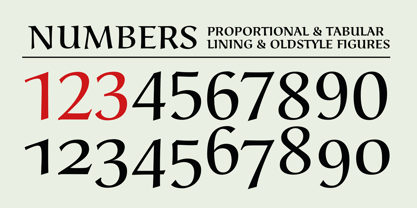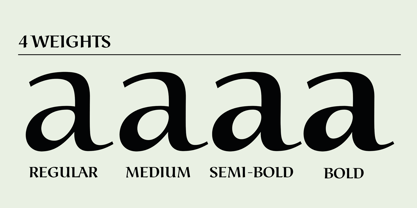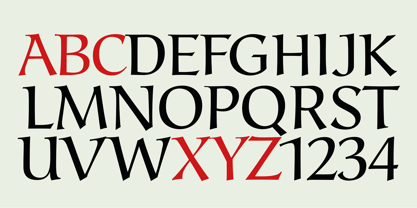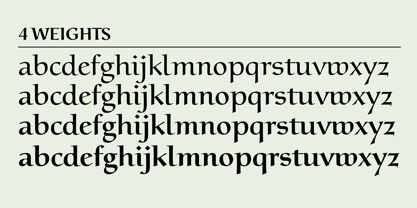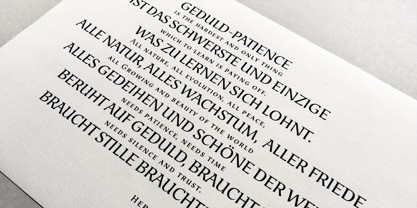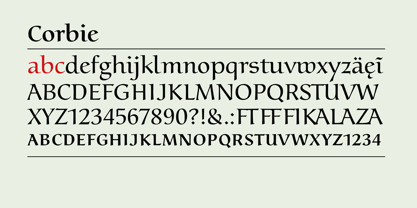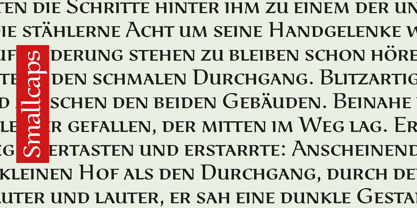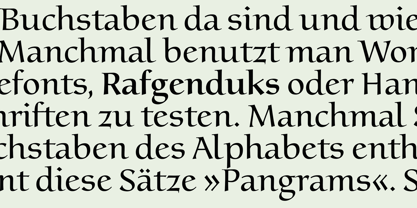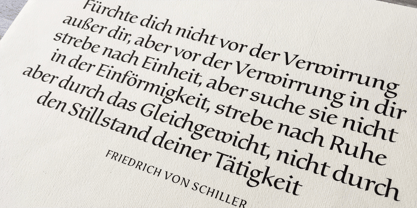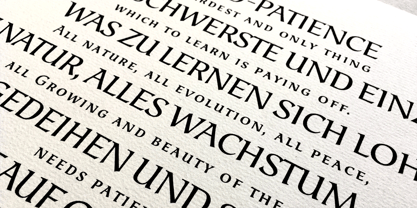
Corbie
The Corbie Font Family was designed by Bertram Kaiser and published by KaiserType. Corbie contains 4 styles and family package options. More about this family
"Corbie" is a beautifully crafted calligraphic antiqua font designed by Bertram Kaiser. This font draws inspiration from the elegant forms of the Carolingian minuscule script, which is rooted in 8th-century manuscripts. Each letter was originally penned with a broad nib and meticulously digitized to preserve its authentic character. The project also takes cues from the renowned German calligrapher Lisa Beck. This font features multilingual (Latin-based) alternates, ligatures, oldstyle figures and smallcaps making it versatile for various typographical applications. Ideal for headlines, it also maintains excellent legibility in smaller text sizes, making it suitable for longer passages of text.
KaiserType is the personal foundry of Bertram Kaiser. Bertram Kaiser was born in Munich Germany. He studied graphic design at the University of Applied Sciences in Augsburg Germany and graduated in 2017 (BA+MA). In his studies he evolved a passion for letter design and typography. His approach to typedesign is mainly based on manual lettershaping such as calligraphy and lettering with a strong focus on historical forms. Therefor his aim is to provide typefaces with a very lively manual look using all the technical possibilities of modern type design such as e. g. alternate letter shapes via OpenType. In 2019 he decided to come up with his personal foundry KaiserType.